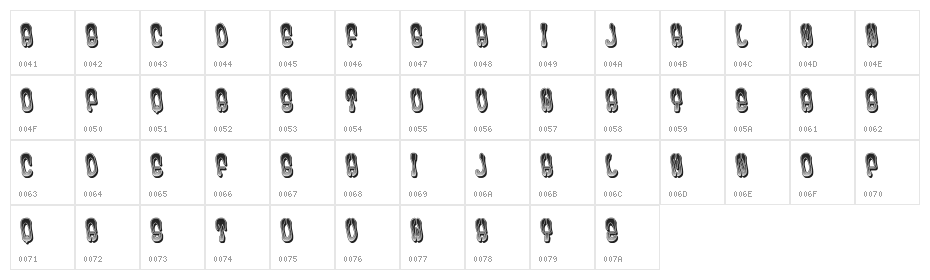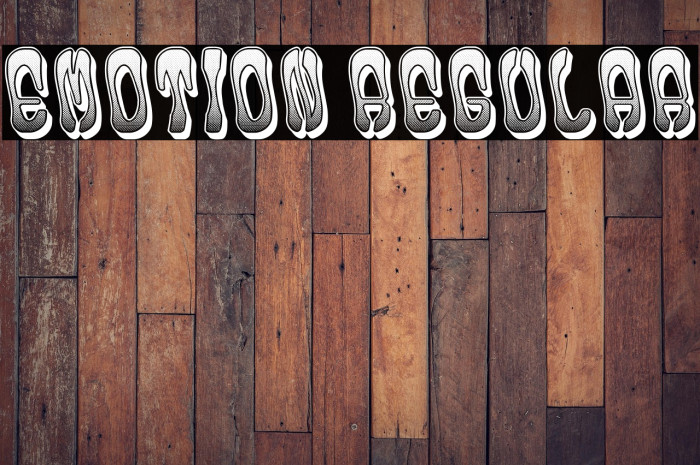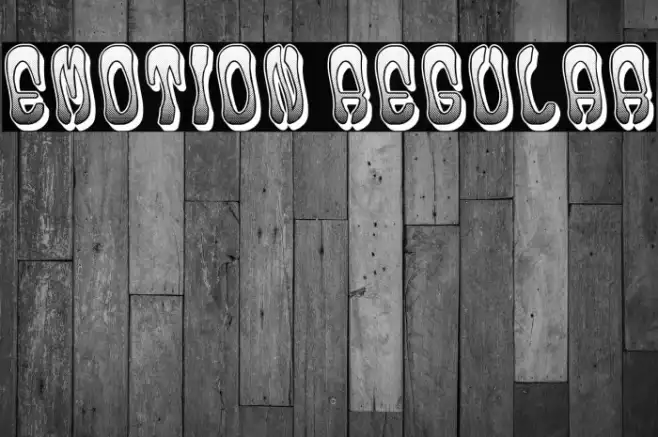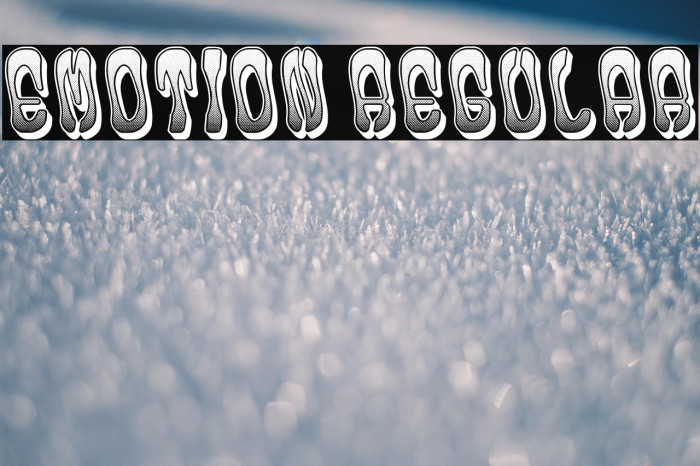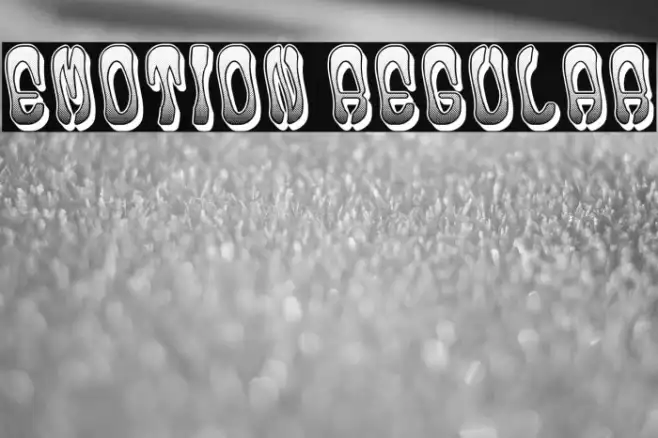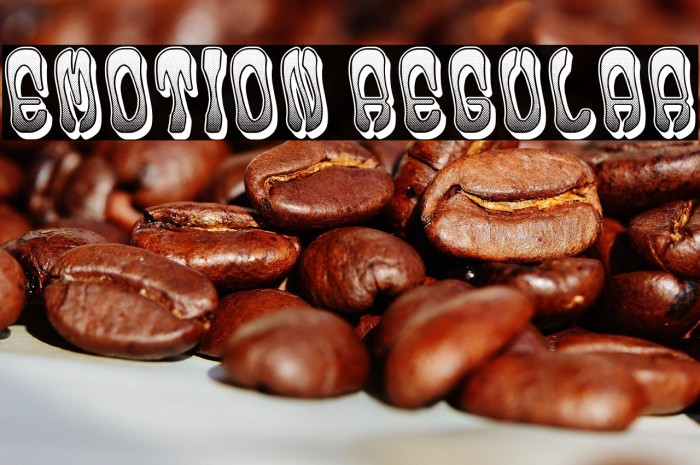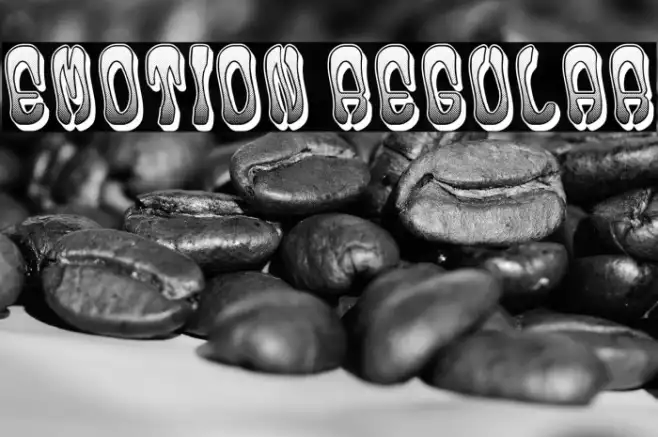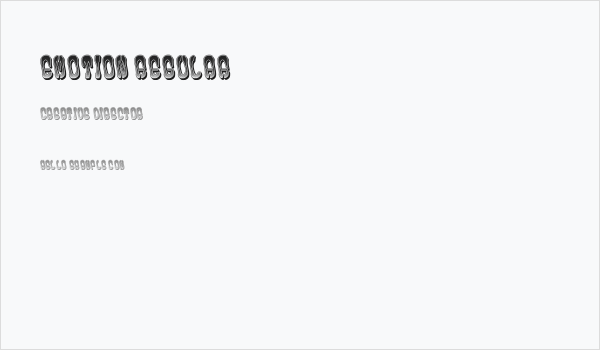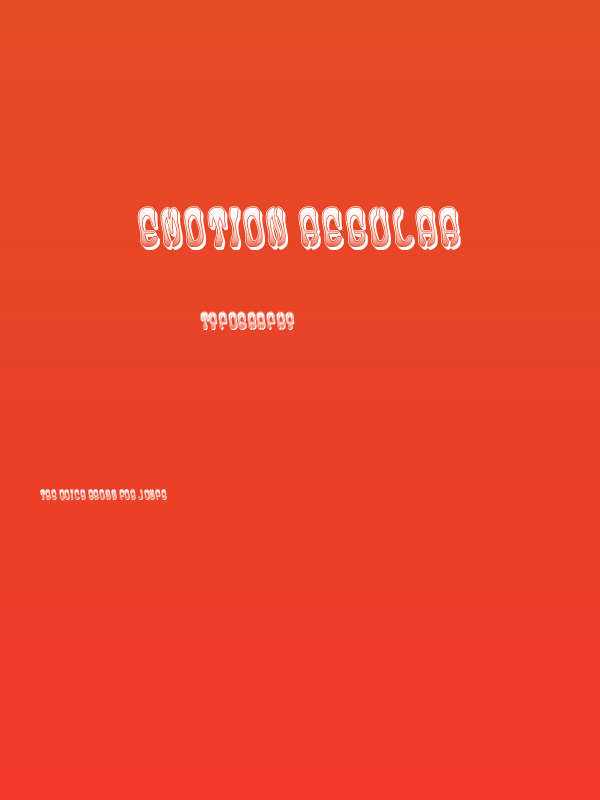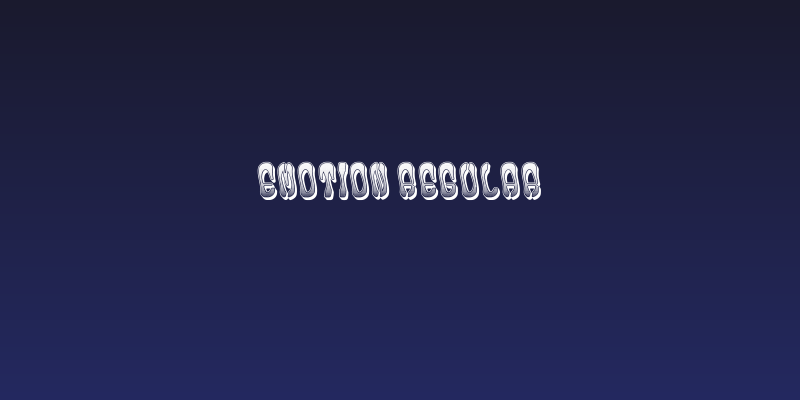
Emotion Regular Font
Emotion Regular Description
This font features a bold, decorative style with a three-dimensional effect that gives each character a unique, shadowed appearance. The letters are thick and rounded, with a playful and artistic flair that makes them stand out. The design incorporates a textured fill within each character, adding depth and visual interest. The overall look is dynamic and eye-catching, suitable for projects that require a strong visual impact. The font's distinct style makes it ideal for creative and expressive design work.
| Proposed Projects | Ideal for posters, album covers, branding, and any project needing a bold, artistic touch. |